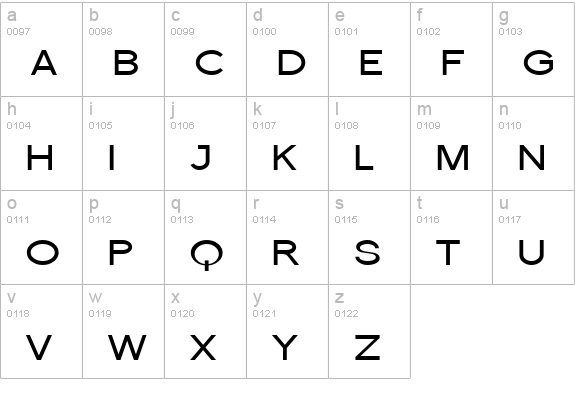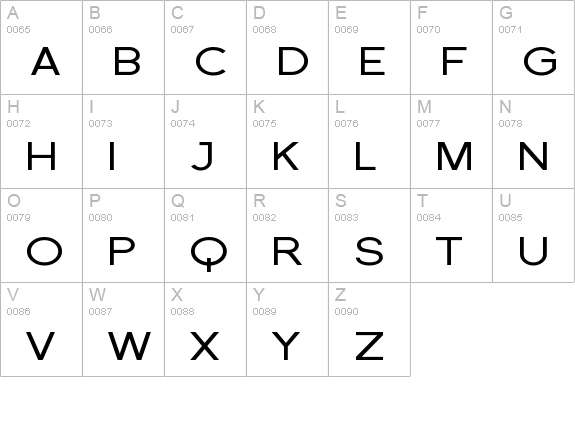
Florencesans SC Exp font is a versatile and elegant typeface that exudes sophistication and modernity. Its elongated proportions and refined letterforms make it ideal for titles, headlines, and other display purposes. This typeface strikes the perfect balance between classic and contemporary, making it suitable for a wide range of design applications. What sets Florencesans SC Exp font apart is that it is available for free download at FontsMarket.com. This means that designers and creatives can easily access this high-quality font without any cost, allowing them to enhance their projects with a touch of style and finesse. Whether you're working on branding, editorial design, or web graphics, Florencesans SC Exp font is sure to elevate your work with its timeless appeal. Don't miss out on the opportunity to add Florencesans SC Exp font to your font library today. Download it for free at FontsMarket.com and discover the endless possibilities this elegant typeface has to offer.